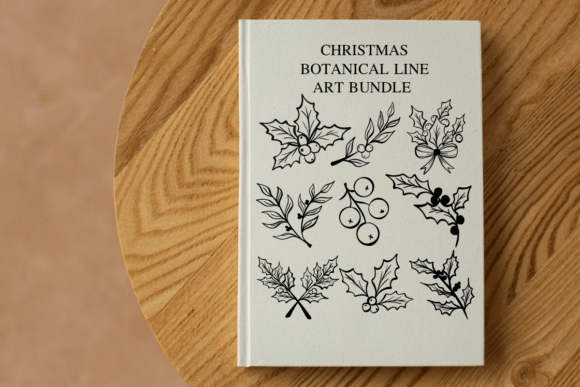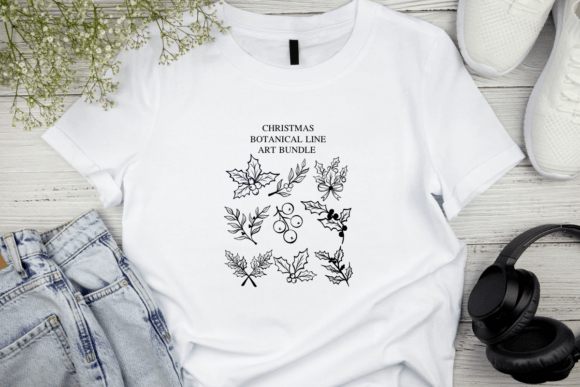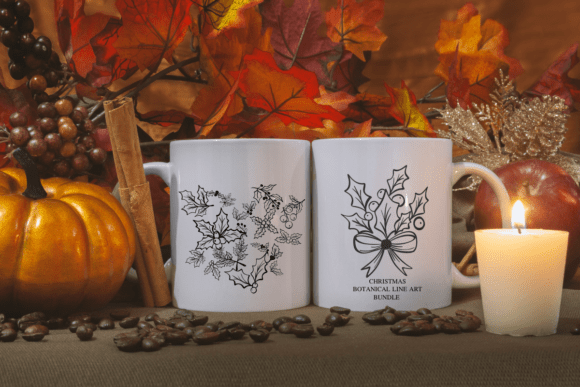
Introduction to Christmas Botanical Line Art Bundle Font
Introducing the Christmas Botanical Line Art Bundle, a specifically designed dingbats font that adds an artistic sketch style to your creations.
Immerse your projects into a flourishing, organic touch that this font lends This font breathes life into wedding invitations, DIY projects, crafts, and decorations, allowing you to transport your audience into a world of creativity and elegance.
Key Features of Christmas Botanical Line Art Bundle Font
Why Choose Christmas Botanical Line Art Bundle Font?
Christmas Botanical Line Art Bundle Font offers exceptional quality and versatility, making it a valuable addition to your design toolkit. Whether you’re creating for personal projects or commercial use, Christmas Botanical Line Art Bundle Font delivers professional results.